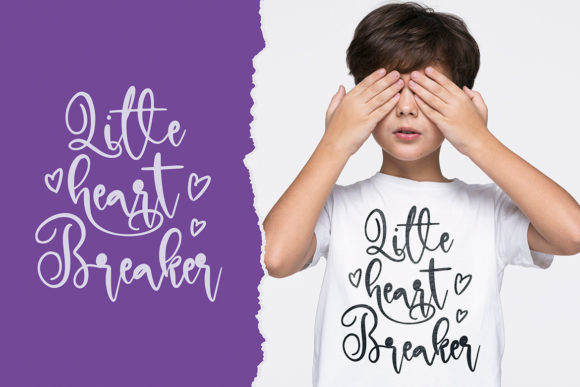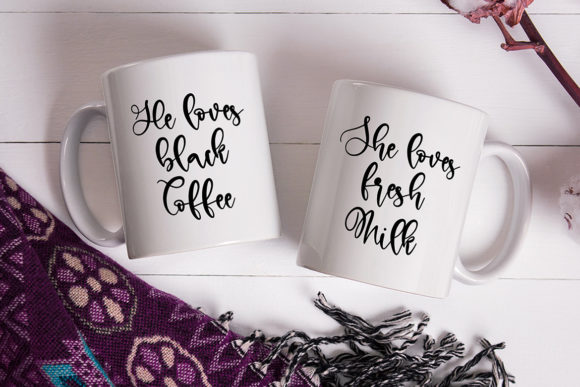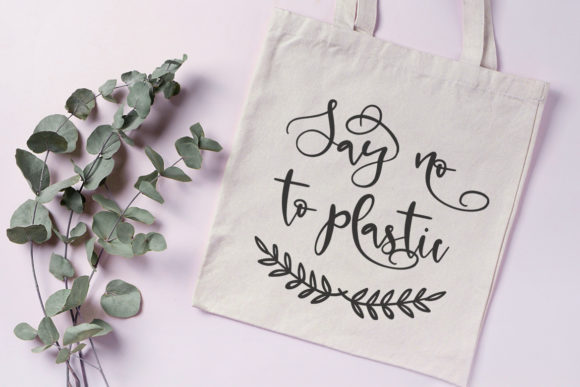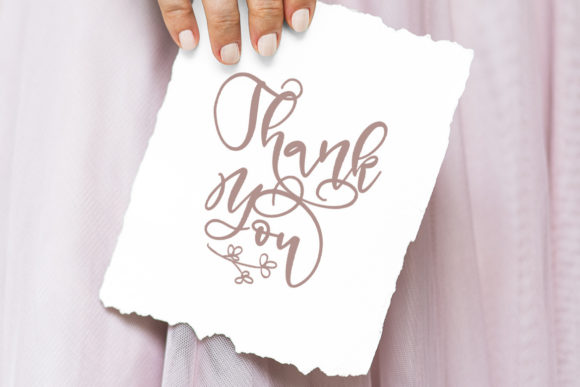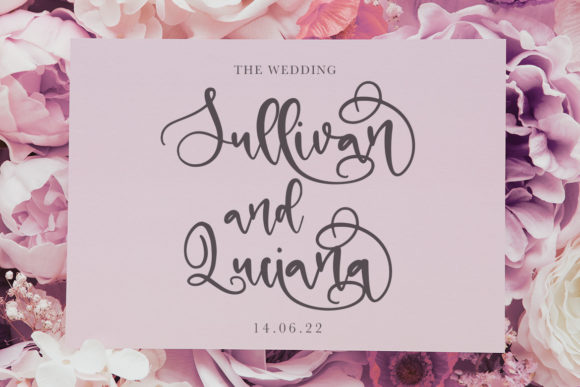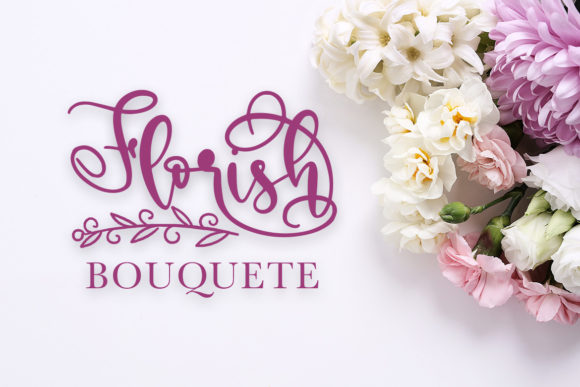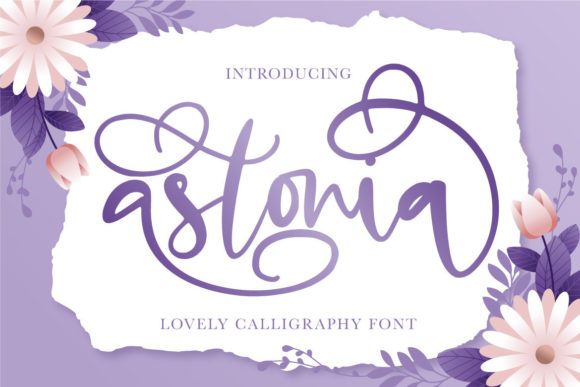
The Charm of Astonia Font: A Designer’s Delight
I’ll never forget the time I was working on a wedding invitation project, and my client asked for a font that was both elegant and charming. I scoured the internet, trying out font after font, but nothing seemed quite right. That was until I stumbled upon Astonia Font. ✨ It was love at first sight! The flowing curves and whimsical touches instantly captured the essence of the wedding’s rustic-chic theme.
A Personal Review of Astonia Font
• ✨ Elegant and charming aesthetic, perfect for wedding invitations, thank you cards, and greeting cards
• 💫 Works beautifully on logos, business cards, and other designs that need a handwritten touch
• 🎨 Highly versatile and can be used for a variety of creative projects
While Astonia Font is an amazing addition to any design project, there are a few things to keep in mind: 🤔
• ⚠️ Some users may find the font a bit too ornate for certain projects
• ⚠️ May not work well with very small font sizes or in situations where a more minimalist approach is needed
A Practical Guide to Using Astonia Font
The Backstory of Astonia Font
While the true origins of Astonia Font are unknown, it’s clear that it was designed with love and care. The font’s creator likely drew inspiration from classic calligraphy and handwritten scripts, infusing it with a sense of elegance and whimsy. 💫
What is Astonia Font best used for? Astonia Font is perfect for designs that require a handwritten touch, such as wedding invitations, thank you cards, greeting cards, logos, and business cards.